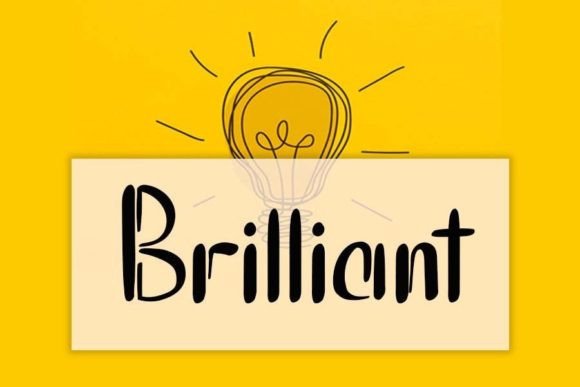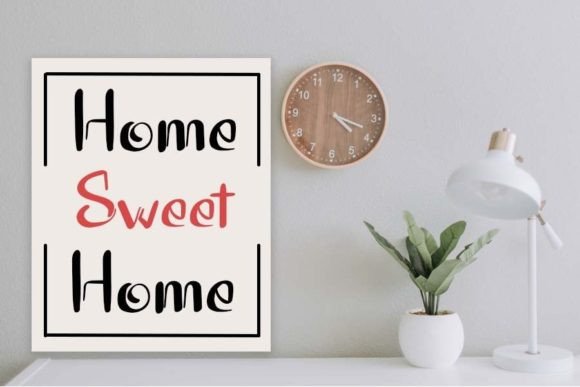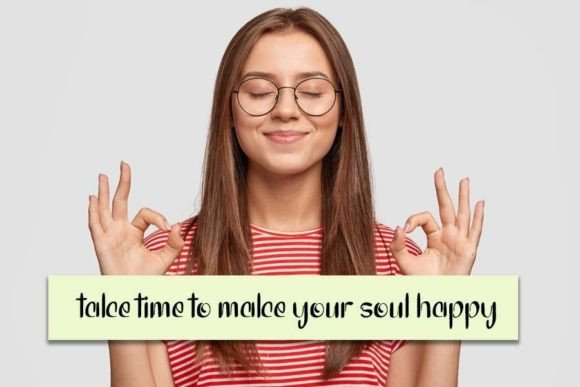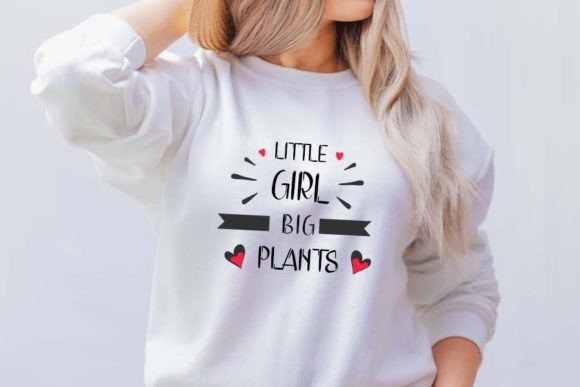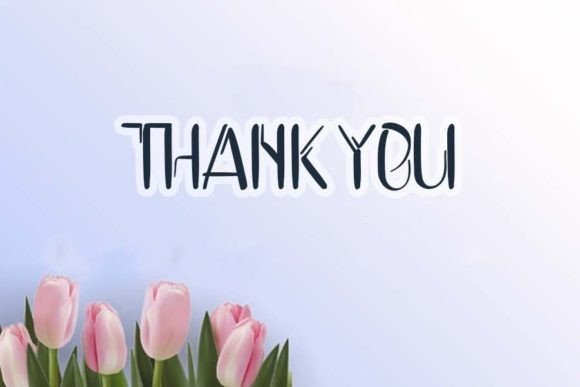
Cup Tea Font: The Ultimate Design Companion
Have you ever been brainstorming a new project, flipping through design inspiration boards, and suddenly, a spark of creativity hits? That’s exactly what happens when you come across the perfect font – the one that elevates your entire design game. For many designers, that font is the Cup Tea Font.
This playful handwritten font is a treasure trove of possibilities, waiting to be unleashed on your next design project. With its natural and unique style, the Cup Tea Font is incredibly versatile, making it an ideal fit for a wide range of designs. Whether you’re working on a brand identity, a social media campaign, or a creative project, this font is sure to bring a touch of personality and whimsy to your work.
What sets the Cup Tea Font apart is its ability to spark imagination and creativity. It’s a valuable tool for designers, allowing them to think outside the box and push the boundaries of what’s possible. With the Cup Tea Font, the only limit is your imagination – and that’s what makes it truly special.
Cup Tea Font Key Features
- Unique Characteristics: The font features a unique, hand-drawn design with a playful and whimsical feel, making it perfect for creative projects and branding.
- Language Support: Cup Tea Font supports a wide range of languages, including Latin, Cyrillic, and Greek alphabets, making it a versatile choice for global designs.
Cup Tea Font Review
I recently had the chance to work with the “Cup Tea Font” and here are my honest thoughts on its performance.
- Cup Tea Font has a lovely, unique design that sets it apart from other fonts. Its distinctive characteristics make it perfect for creating a personal and whimsical feel in branding and designs.
- The font is highly legible, even at smaller sizes, making it suitable for a wide range of applications, from body text to headings.
- The font supports a wide range of languages, making it a great option for multinational companies or projects.
- The font’s design may not be suitable for formal or professional projects, as it has a more casual and playful feel.
Overall, I think the “Cup Tea Font” is a great option for designers who want to add a touch of personality to their projects. While it may not be suitable for all types of projects, it’s a great choice for those who want to create a unique and memorable brand identity.
The Cup Tea Font is perfect for:
- Creative projects, such as graphic design and illustration.
- Branding and marketing materials, such as logos and business cards.
- Wedding invitations and other special occasion designs.